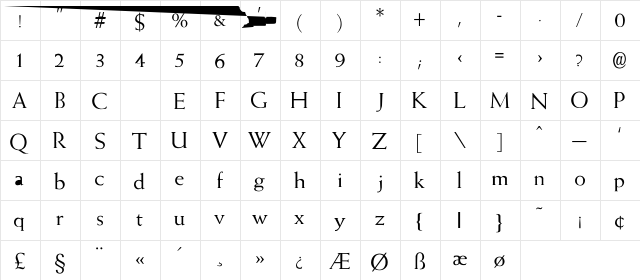
Campbell-Normal Regular
Design Context for Campbell-Normal Typeface
Campbell-Normal offers clean, dependable letterforms without strong stylistic allegiance, making it a practical choice for designers who need flexibility.
Pro Tip: Pair Campbell-Normal with a font of contrasting weight or personality to build a more expressive typographic hierarchy.